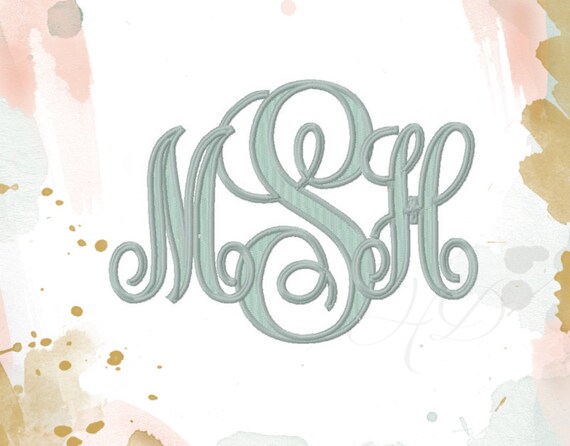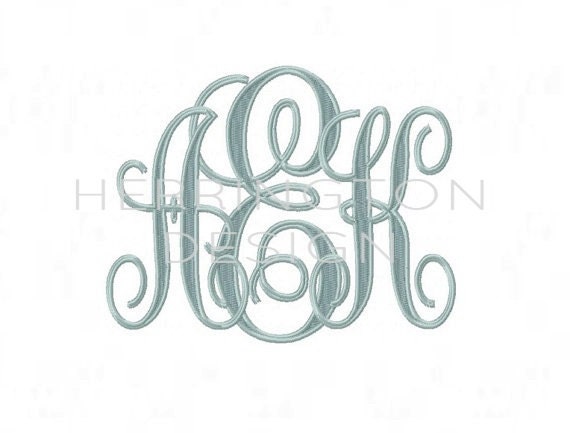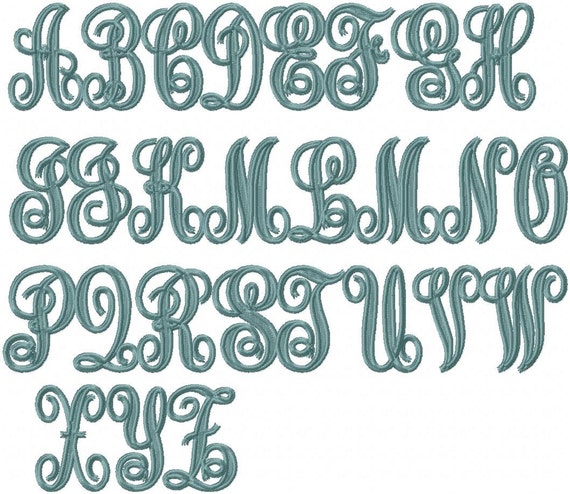
This set includes Monogram Letters in 2 sizes
The largest set is 5" tall and the smaller set is 4" tall.
These letters are a Standard Fill with a satin stitch outline in a two colors.